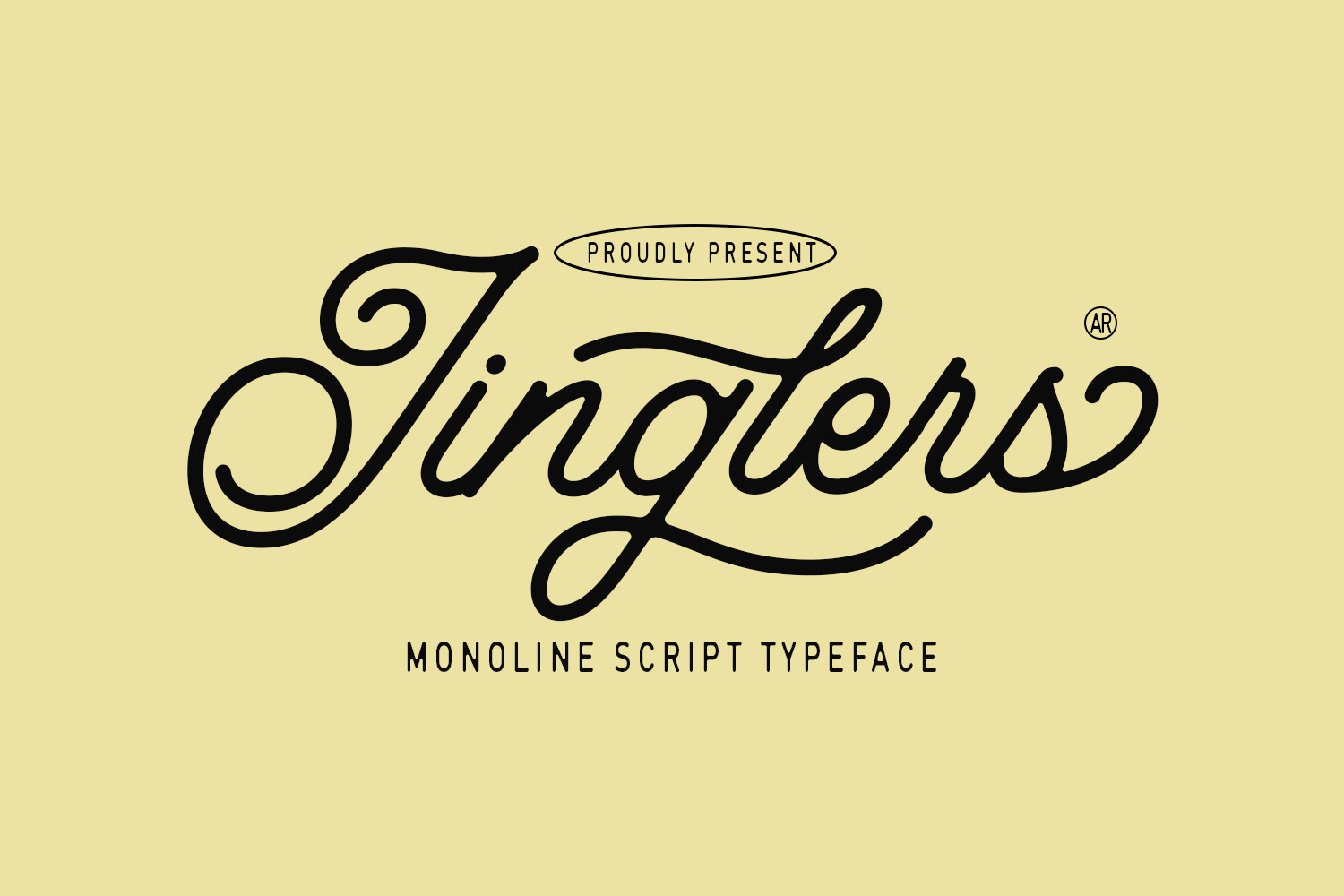
Jinglers - Monoline Script Font
Jinglers is a sophisticated Monoline Vintage Script Font that elegantly merges the nostalgia of the past with the clarity and precision of modern design. Characterized by its continuous, unbroken line style, Jinglers delivers a seamless flow across each letter, creating a smooth and polished appearance. This font is crafted to evoke a sense of timeless elegance, making it an ideal choice for projects that require a vintage yet contemporary touch.
\### Key Features:
Monoline Design: Jinglers features a consistent stroke weight throughout each character, giving it a clean and uniform look. This monoline approach adds a level of sophistication and modernity to the classic script style.
Vintage Appeal: The design of Jinglers is rooted in the aesthetics of the past, drawing inspiration from mid-20th-century scripts. Its cursive, flowing letterforms capture the essence of retro signage, advertising, and packaging, making it perfect for projects that seek to channel a vintage vibe.
Versatility: Despite its vintage origins, Jinglers is versatile enough to be used in a variety of modern design contexts. It works beautifully in logos, branding, packaging, and even editorial design, providing a touch of classic elegance wherever it's applied.
Elegance in Simplicity: The simplicity of its monoline construction ensures that Jinglers remains legible and visually appealing at various sizes. Its smooth curves and balanced proportions make it suitable for both large headlines and smaller body text, offering flexibility across different mediums.
Applications: Jinglers shines in projects that require a balance of tradition and modernity. It's perfect for creating logos that need to convey a sense of heritage, wedding invitations that call for a touch of romance, or product packaging that wants to stand out with a handcrafted feel.
Stylistic Alternatives: Jinglers may include alternate characters and ligatures to enhance its versatility, allowing designers to customize the font to better suit their specific design needs.
\### Ideal Uses:
Branding and Logos: Jinglers' vintage yet modern feel makes it a great choice for brands that want to convey authenticity and timelessness.
Packaging Design: Whether for food, beverages, or artisanal products, Jinglers adds a handcrafted, retro charm that enhances product appeal.
Editorial Design: The font's legibility and elegance make it suitable for magazine covers, article headlines, and pull quotes, giving printed materials a classic, refined look.
Signage and Displays: Its clear, flowing style is ideal for creating attention-grabbing signs and displays that are easy to read and visually pleasing.
In summary, Jinglers is a Monoline Vintage Script Font that offers a harmonious blend of classic and contemporary design elements. Its elegant, flowing forms are perfect for a wide range of design applications, making it a go-to choice for anyone looking to add a touch of vintage charm to their work while maintaining modern appeal.